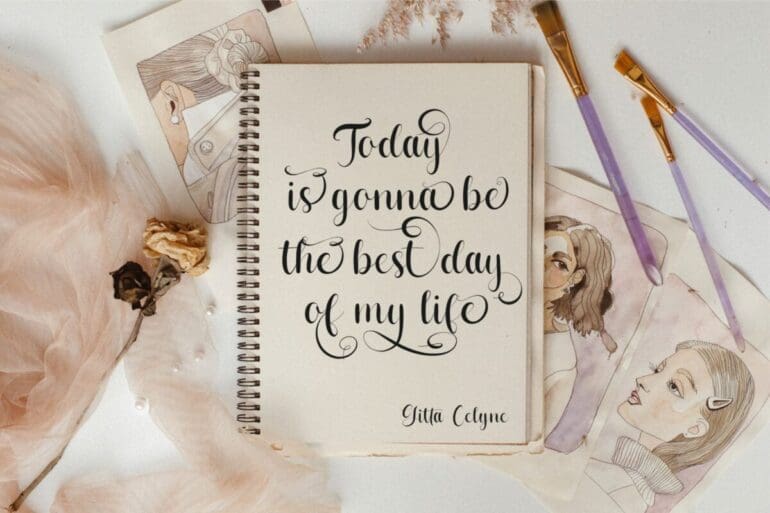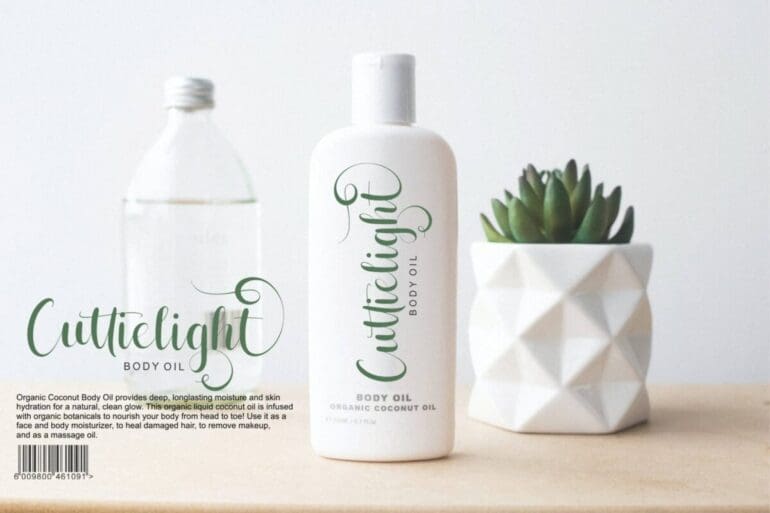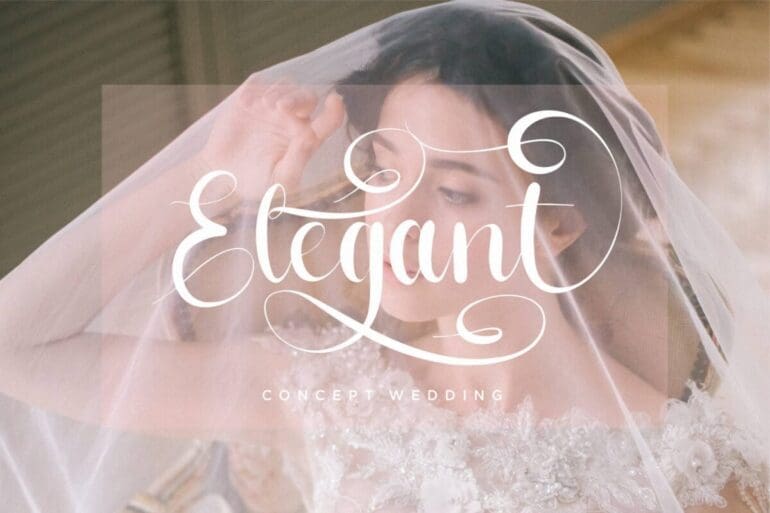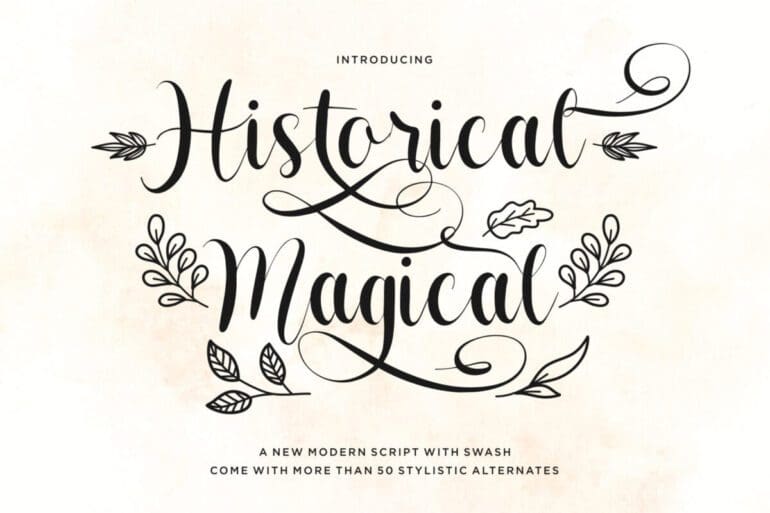
Historical Magical Font
Historical Magical is an enchanting script font. This versatile script font has a wide spectrum of applications ranging from greeting cards to headlines. Historical Magical is PUA encoded which means you can access all of the glyphs and swashes with ease!